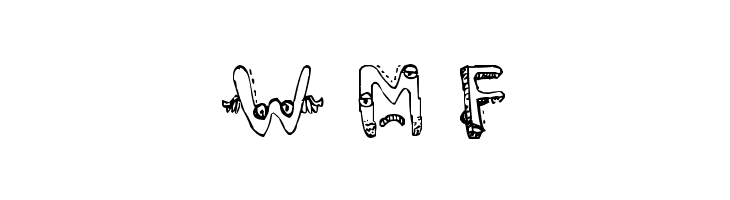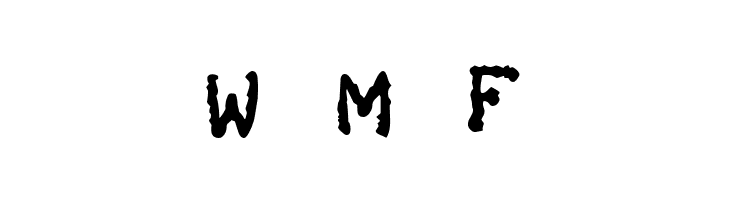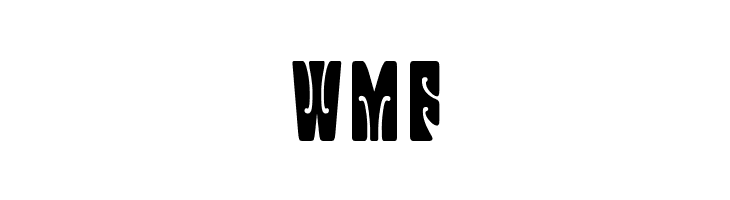
A bold, gothic blackletter font with intricate detailing and a medieval flair.
A geometric, linear font with intersecting lines and boxed numerals.
A bold, circular, and artistic font with a modern and playful style.
A playful, dotted font with a hand-drawn, whimsical style.
A dingbat font with gravestone and tombstone illustrations.
A bold, distressed gothic-style font with a dramatic and textured appearance.
A distressed, grunge-style script font with a bold, artistic flair.
A playful, alien-themed font with quirky patterns and textures.
A whimsical, decorative font with tall, narrow letterforms and artistic details.
A bold, playful font with a futuristic and dynamic style.
A playful, hand-drawn font with a casual and informal style.